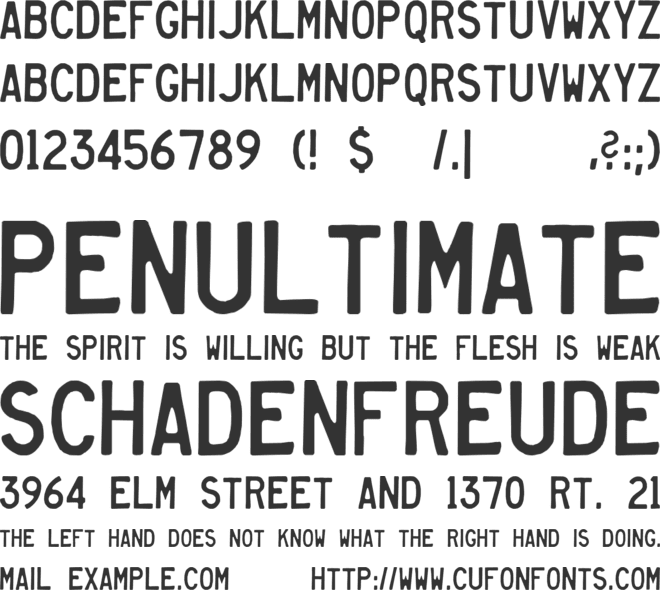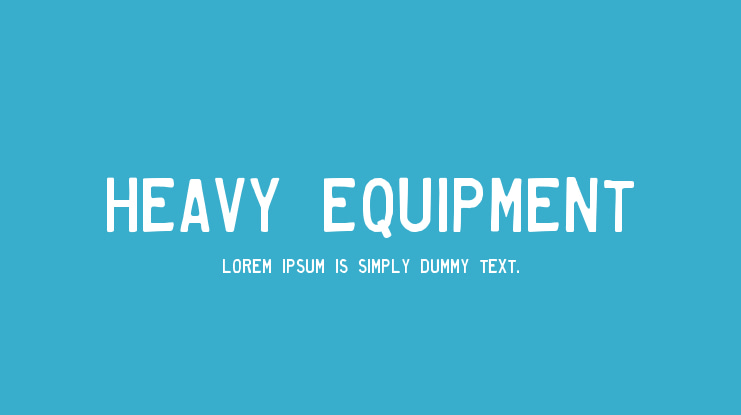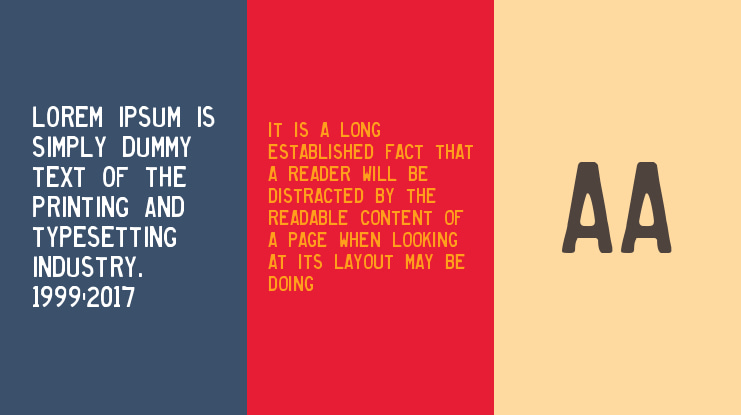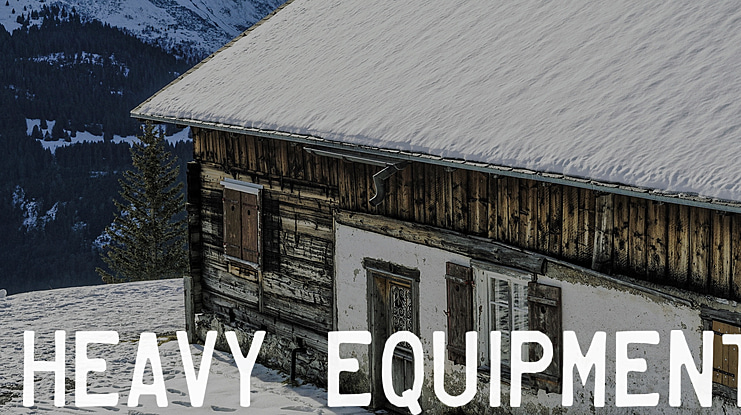
Heavy Equipment Font
The Heavy Equipment font is a sans-serif font that resembles the fonts of the Michigan license plates from the 1960's and 1970's.